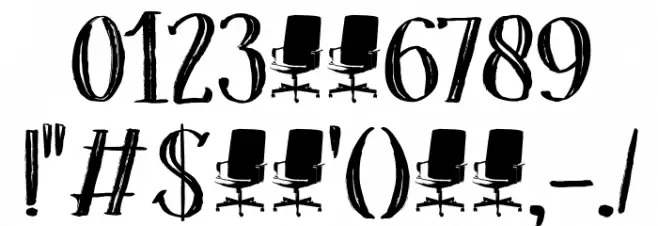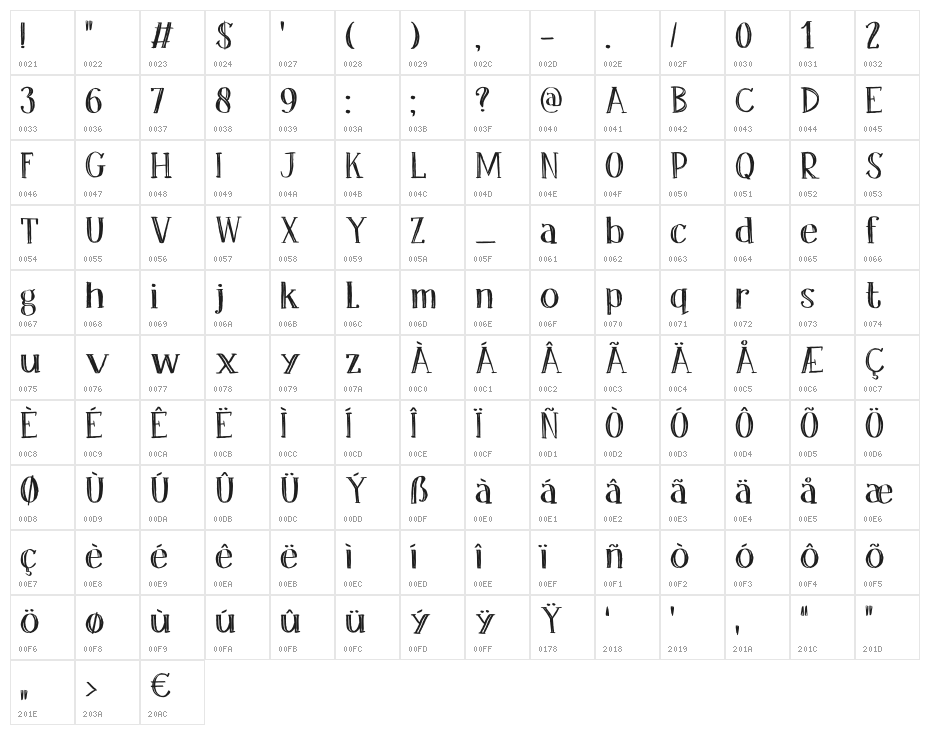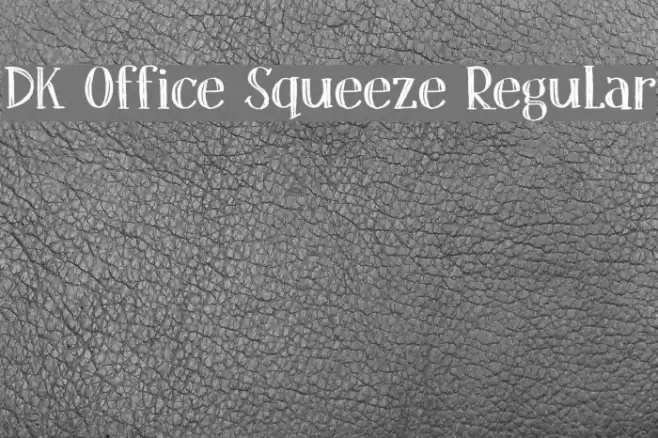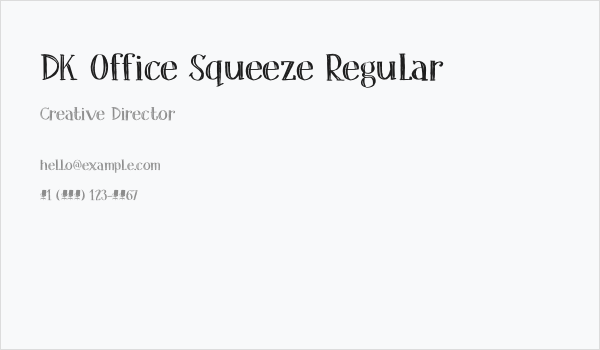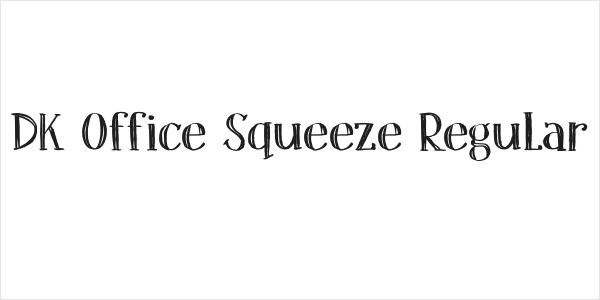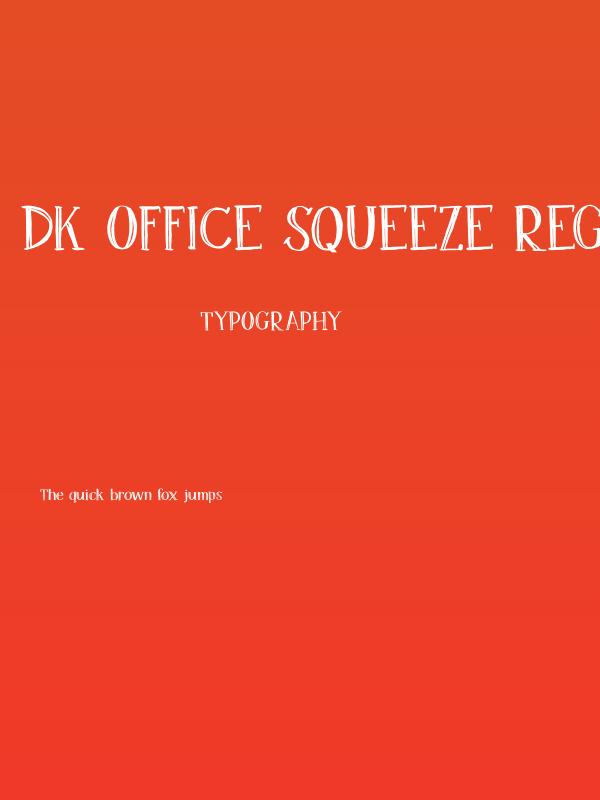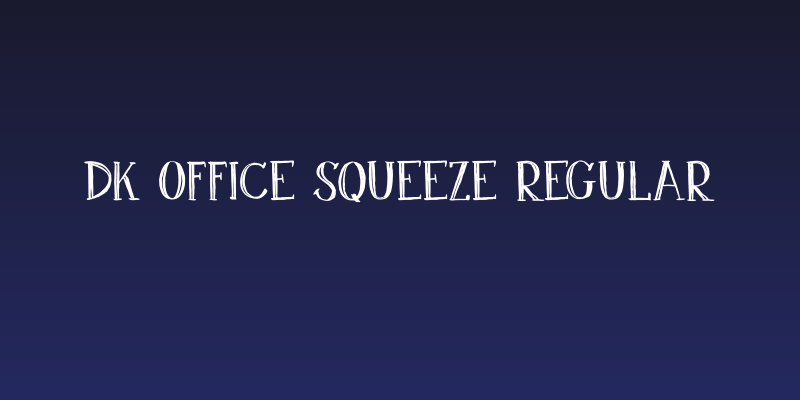
DK Office Squeeze Regular Font
DK Office Squeeze Regular Description
This font features a distinctive hand-drawn style with a playful and artistic flair. The characters are slightly irregular, giving them a whimsical and informal appearance. The strokes are bold and uneven, adding a dynamic and textured look. The uppercase and lowercase letters maintain a consistent style, with a slight slant that adds to the casual feel. The numerals and special characters are equally expressive, making this font suitable for creative and informal projects. The overall design is eye-catching and unique, perfect for adding a touch of personality to any text.
| Proposed Projects | Ideal for greeting cards, posters, children's books, and creative branding projects. |